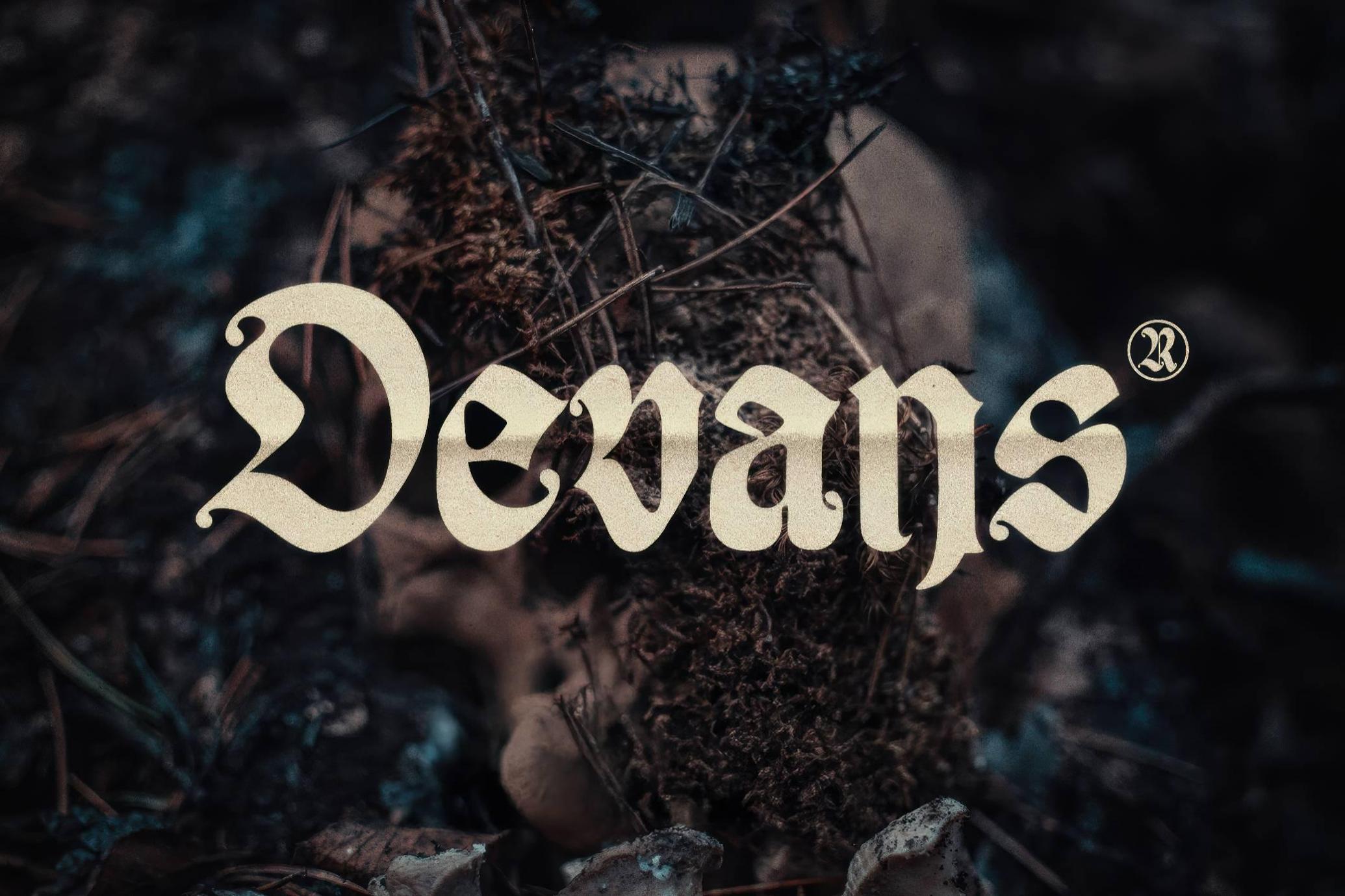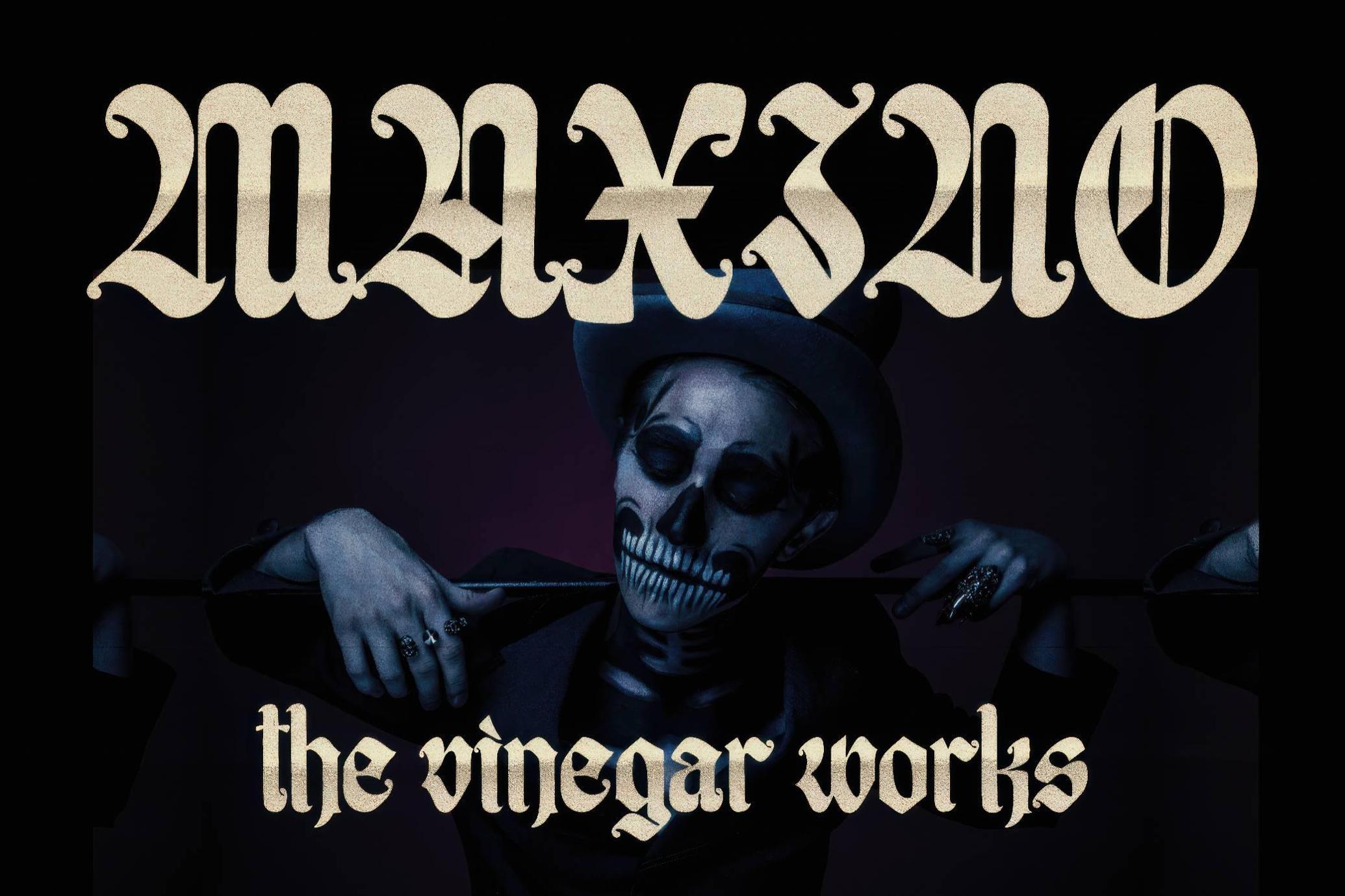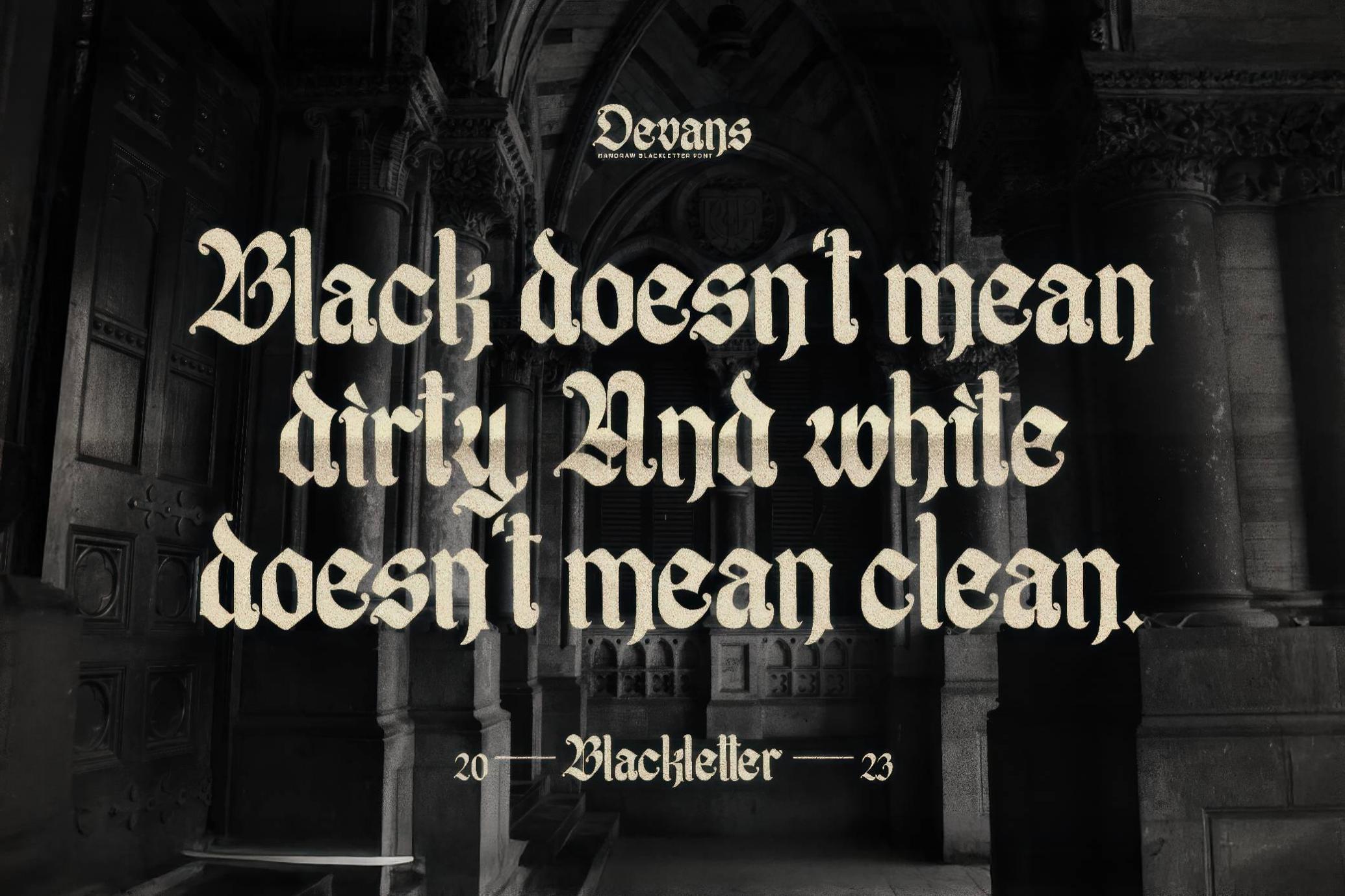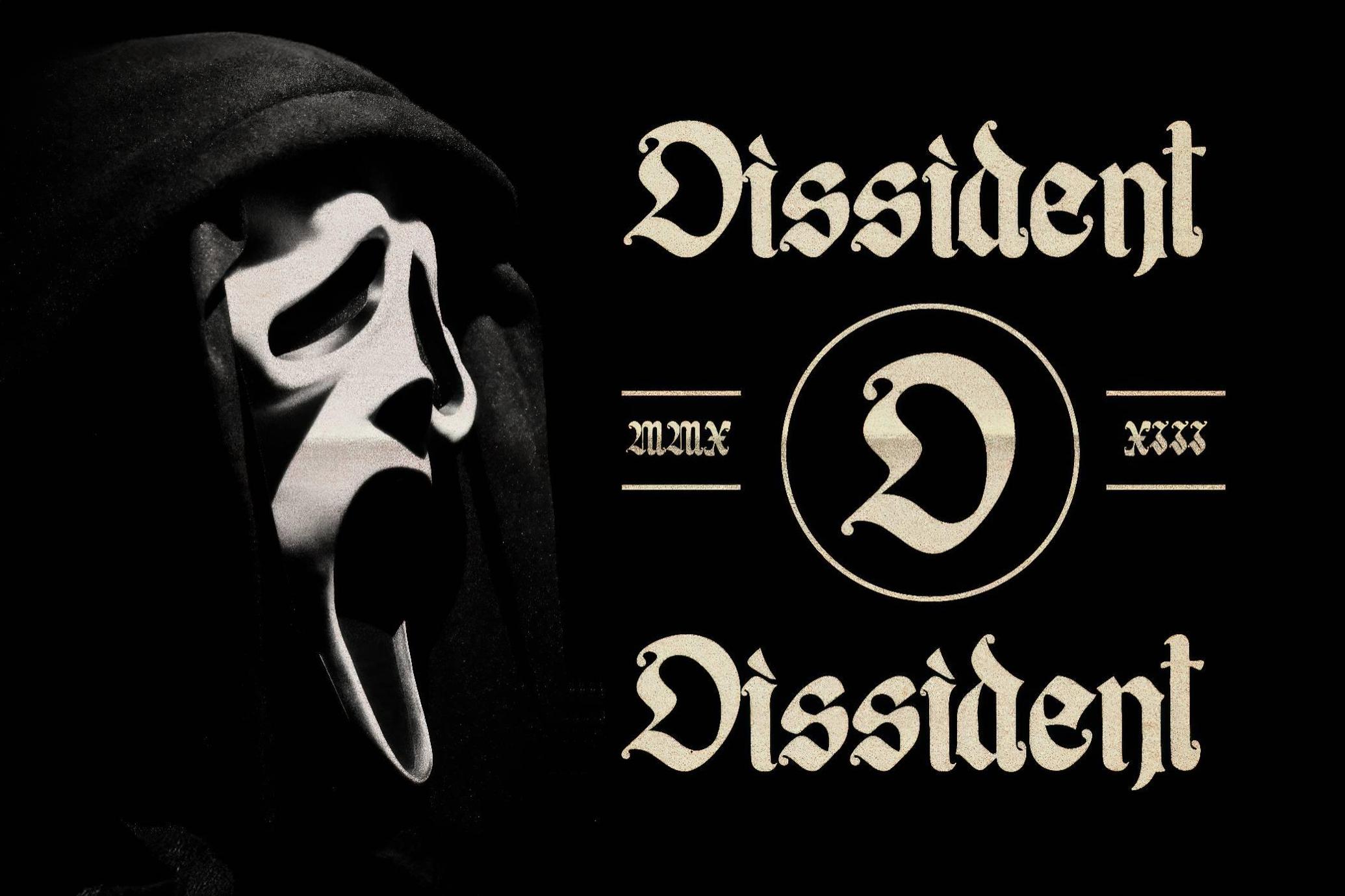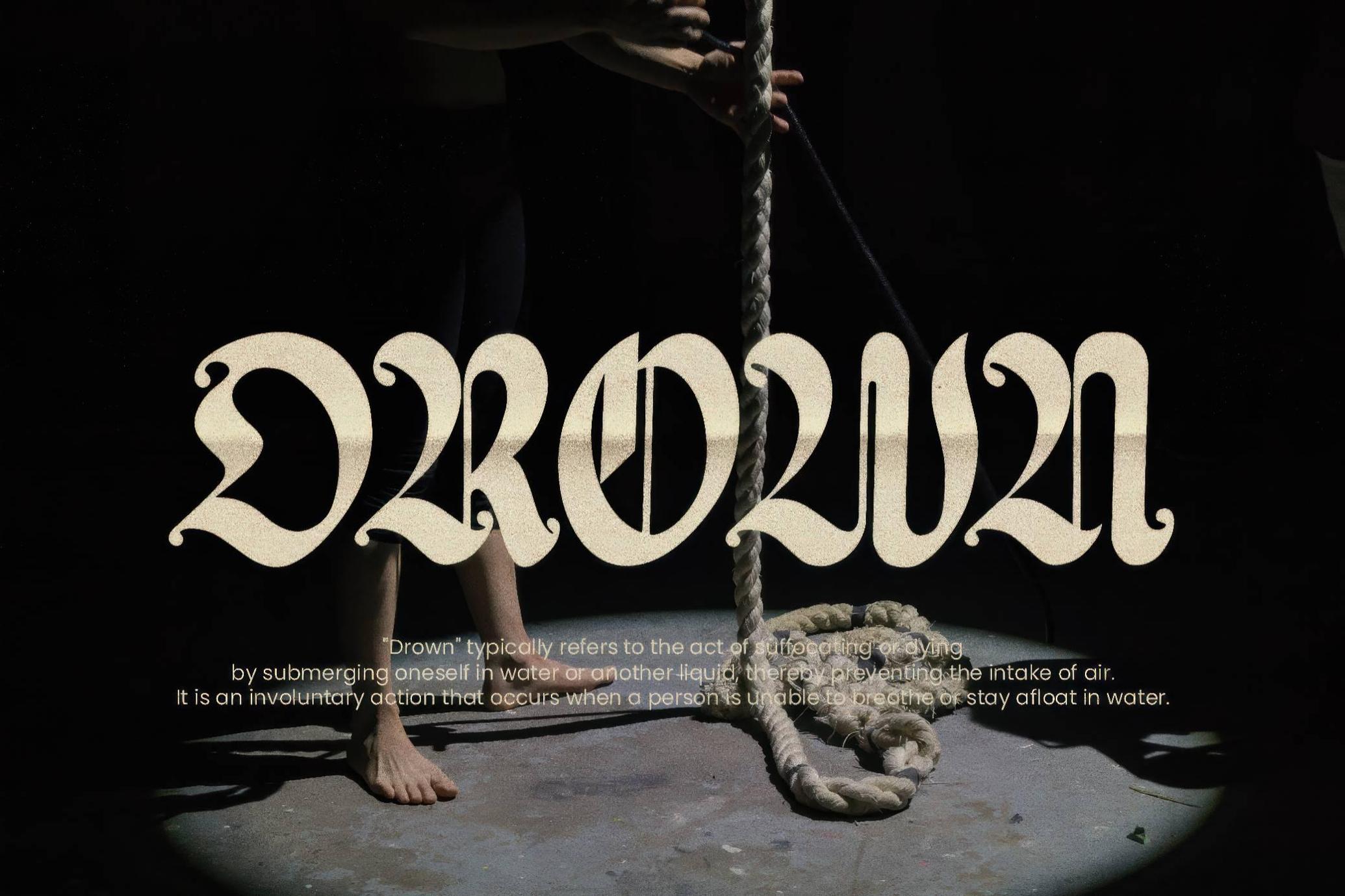
Devans — Handrawn Blackletter Font
Devans
Blackletter is the new grunge, so Devans wraps brutalist aesthetics into manuscript-worthy glyphs. It pairs nib-drawn strokes with the clean legibility of modern typography, turning into a gem for apparel and branding. Trendy streetwear and limited fashion collections, packaging, coffee shops, cafes, restaurants, and small businesses — all of those will greatly benefit from just having Devans on fabric, paper, business cards, and logos.
Inside: a complete character set. Devans provides 214 glyphs: uppercase and lowercase letters, numbers, punctuation, ligatures, alternative characters, and multilingual support.